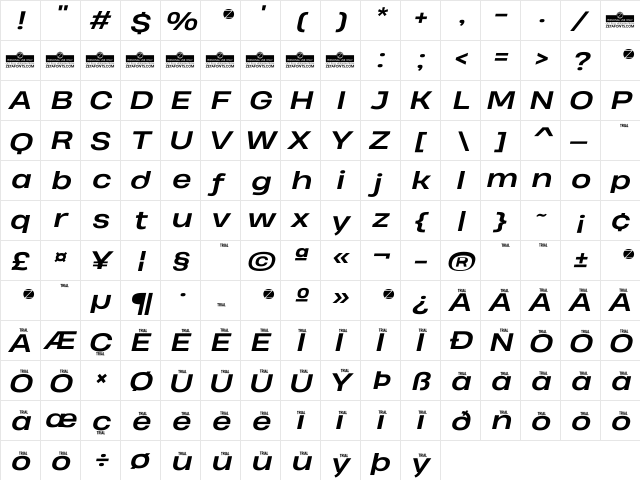
Heading Pro Wide Trial Bold Italic Font Preview
Design Context for Heading Pro Wide Trial Typeface
Heading Pro Wide Trial takes a measured approach to typography — its balanced proportions and neutral character make it a reliable workhorse for both digital and print work. The slanted form adds forward momentum and visual energy. The heavy weight commands attention and anchors typographic hierarchies.
Pro Tip: Try Heading Pro Wide Trial for annotation and caption copy alongside an upright companion — the contrast in angle creates a dynamic but ordered typographic system.